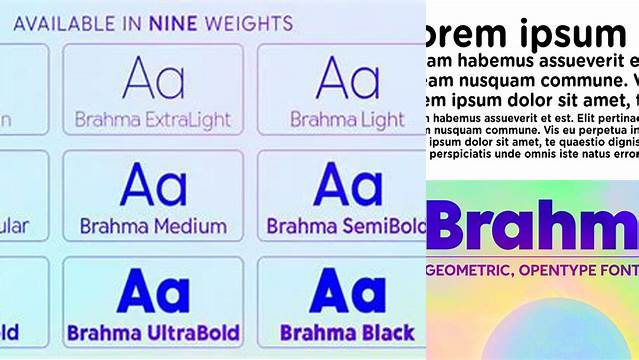
Hey guys, are you on the hunt for a font that's both stylish and easy on the eyes? Look no further, because we're diving deep into the world of the Brahma Rounded Regular font! This font is a real gem, offering a perfect blend of modern aesthetics and readability. And the best part? You can snag it as a free download! In this comprehensive guide, we'll explore everything you need to know about this fantastic font, from where to download it legally to how to use it in your projects. So, buckle up and get ready to discover why the Brahma Rounded Regular font might just become your new go-to for all your design needs. We'll cover the font's features, its suitability for various applications, and, of course, how to get your hands on it without spending a dime. Let's get started!
What Makes the Brahma Rounded Regular Font So Special?
Alright, let's talk about what makes the Brahma Rounded Regular font stand out from the crowd. First off, its design is incredibly versatile. The rounded edges give it a friendly and approachable vibe, making it perfect for a wide range of projects. Whether you're working on a website, a poster, a logo, or even a simple social media graphic, this font has got you covered. It strikes a great balance between being modern and classic, so it won't feel outdated anytime soon. Plus, the regular weight is super easy to read, even at smaller sizes. This is crucial, guys, because you want your audience to actually be able to read what you're writing, right? The font's clean lines and well-defined shapes ensure excellent readability. The Brahma Rounded Regular font is a fantastic choice if you're aiming for a clean, contemporary look. The rounded terminals give it a softer feel, avoiding the harshness often associated with geometric sans-serif fonts. This font is ideal for headlines, subheadings, and body text, providing a consistent and cohesive look across your design. It's a font that really pulls everything together, giving your project a professional and polished appearance. Its versatility allows it to be used in both digital and print media. Imagine using this font for your brand's website, a poster campaign, or even a book. The possibilities are endless! The design itself is also aesthetically pleasing. It is a visually appealing font that is not too distracting but still manages to capture attention. This makes the font suitable for different kinds of businesses and organizations, and the font can greatly enhance the overall user experience and engagement. The font also features a great x-height, contributing to its readability at smaller sizes. This is important because it means the font remains legible even when used in extensive bodies of text. This makes the font a viable option for various applications, from short titles to long-form content.
How to Use the Brahma Rounded Regular Font in Your Projects
Okay, you've got the Brahma Rounded Regular font downloaded and installed. Now, let's talk about how to make it shine in your projects. First off, this font is incredibly versatile, as we mentioned earlier. Think about using it for headings, subheadings, and even body text. Its clean lines and rounded edges make it ideal for modern and friendly designs. When using it for headings, experiment with different sizes and weights to find the perfect balance. Consider pairing it with a contrasting font for your body text to create visual interest. For example, a clean sans-serif like Brahma Rounded Regular could pair beautifully with a serif font for body paragraphs. When using the font in logos, think about how the font's personality aligns with your brand. Its friendly vibe can be perfect for brands that want to appear approachable and trustworthy. Try experimenting with different color combinations to see how the font looks against various backgrounds. The font's neutrality allows it to adapt well to a variety of styles. You may also experiment with different font weights and styles. Brahma Rounded Regular has a certain charm, but playing with bold or italic versions can add extra personality to your designs. Consider the overall aesthetic you are trying to achieve and make sure your font choices support that. Make sure you align your font choices with your brand's personality to ensure brand consistency. If you're using the font for web design, make sure the font is web-safe. Use font formats that are compatible with web browsers to ensure it displays correctly across different devices. The use of CSS allows you to embed the font into your website, making it visible to everyone who visits. Always consider the context of your design. Different applications may require different treatments. For example, a poster might benefit from a more prominent display of the font compared to its use in body text. In short, there are so many ways to creatively use the Brahma Rounded Regular font. Be patient, experiment, and most importantly, have fun creating with this versatile font!
Brahma Rounded Regular Font: Tips and Tricks for Maximum Impact
Let's get into some tips and tricks to help you make the most of the Brahma Rounded Regular font. When using the font in design projects, remember that it is a tool, and you can use the font creatively to help deliver your message. First, play around with letter spacing and kerning. Adjusting the spacing between letters can significantly impact the overall look and readability. You can tighten it up for a more condensed look or loosen it for a more airy feel. The font is well-suited for customization. This allows you to adjust the letter spacing and other elements to fine-tune the design of your final project. Second, consider the hierarchy of your text. Use different font sizes and weights to create visual emphasis. Make sure your headings and subheadings are easily distinguishable from your body text. Third, think about the color of the font. While the font itself is neutral, the color you choose can dramatically affect the overall mood of your design. Try different color palettes and see what works best for your project. If you are targeting your design at a particular audience, remember to consider the preferences of that audience, and use appropriate colors and designs. Fourth, explore font pairings. Matching the Brahma Rounded Regular font with other fonts can greatly enhance the design. Try pairing it with a serif font for a classic look or with another sans-serif font for a modern feel. Pairing fonts is an art, and it requires some experimentation. It’s important to test out different combinations until you find a great pair of fonts that work well together. Fifth, always test your design. Before finalizing your project, test it out on different devices and screen sizes to ensure it looks good everywhere. Sixth, consider the context. Where will your design be used? Is it for a website, a print poster, or a social media graphic? The context will influence how you use the font. Make adjustments depending on the application to ensure maximum readability and visual impact. Taking these tips into account will make sure you get the best results out of the Brahma Rounded Regular font. Always remember to have fun and let your creativity run wild!
Alternatives to the Brahma Rounded Regular Font
While the Brahma Rounded Regular font is amazing, it’s always helpful to know about some alternatives. In case it doesn't quite fit your project's vibe, or if you just want to explore other options, here are a few fonts that share similar characteristics. You can always find the perfect font for your specific project. First, you have Poppins, a popular sans-serif font that is similar in style to Brahma. It's known for its clean lines and great readability, making it a solid alternative. Second, we have Lato, another fantastic sans-serif font with a friendly and approachable feel. Lato is a good choice if you're looking for a versatile font that works well in a variety of applications. Third, Open Sans is a great option, known for its clarity and readability. This is a popular choice for body text, and its neutral design makes it suitable for a wide range of projects. Each font offers a unique twist, so you will certainly be able to find a font suitable for your needs. Consider the design requirements of your project when making these selections. Think about the specific characteristics of your project, such as the overall look, the target audience, and the design context. Each font has its own distinct personality, so you can use that to ensure you are aligning with your needs. Experimenting with these alternative fonts is a great way to expand your design toolkit. Sometimes, exploring other options can lead you to discover the perfect font for your project. By keeping these alternatives in mind, you can always make the right choice!
So, there you have it! The Brahma Rounded Regular font is a versatile and easy-to-use font that's perfect for a wide range of design projects, and best of all, it's available as a free download! Whether you're a designer, a student, or just someone who loves creating, this font is a fantastic addition to your toolkit. We've covered everything from finding the font to using it effectively and even troubleshooting potential issues. Make sure you go through the download instructions carefully, and always adhere to the licensing agreements. You are now ready to use this fantastic font in your projects. This font will improve the visual appeal of your design, no matter the application. Now, go out there, download the font, and start creating something amazing! Happy designing, and we can't wait to see what you come up with!